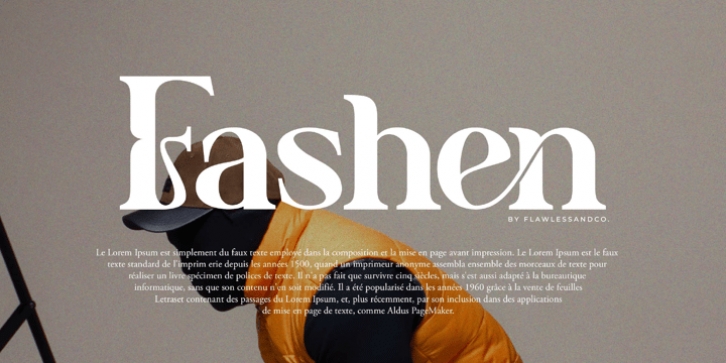
Benogi Font Family was designed by Achmad Yani, and and published by Flawlessandco. Benogi contains 1 styles and family package options.
Benogi is a Modern Retro Font with a classy and unique style in each character, so it's fitted for some wedding invitation display.
There's some connected letters and some alternates that suitable for any graphic designs such as branding materials, t-shirt, print, business cards, logo, poster, t-shirt, photography, quotes .etc
This font support for some multilingual. Also contains uppercase A-Z and lowercase a-z, alternate character, numbers 0-9, and some punctuation.